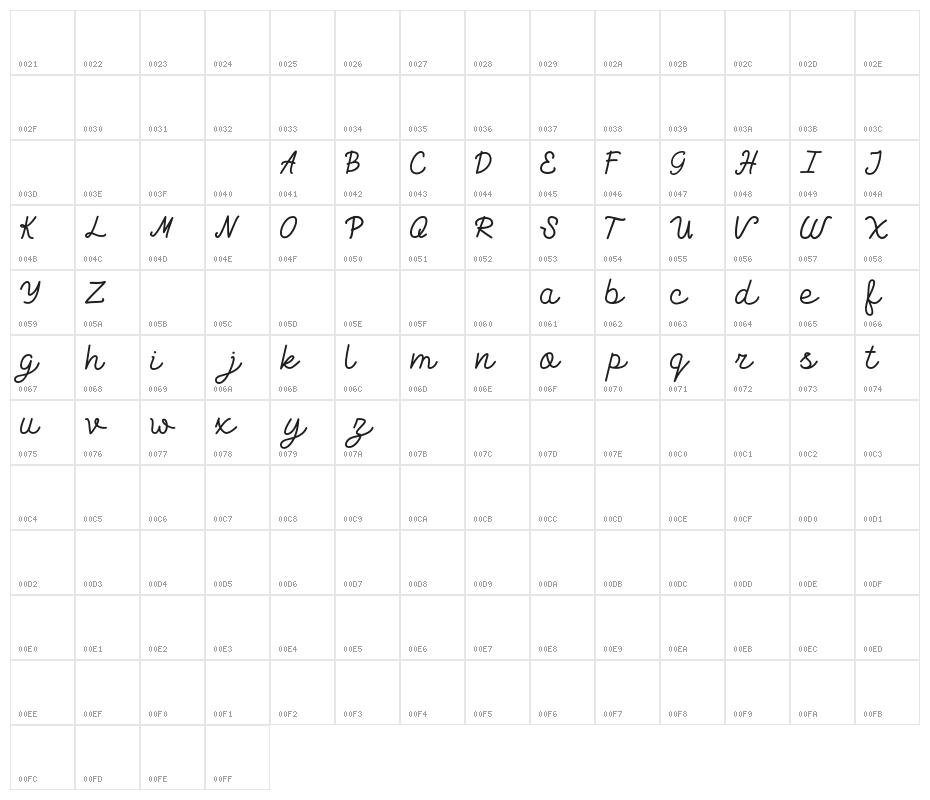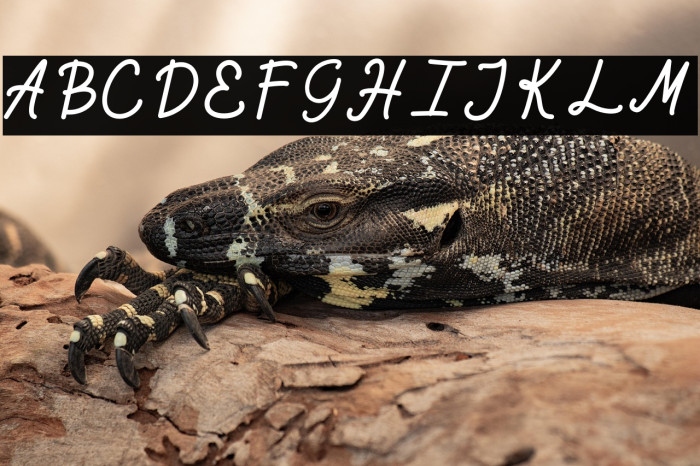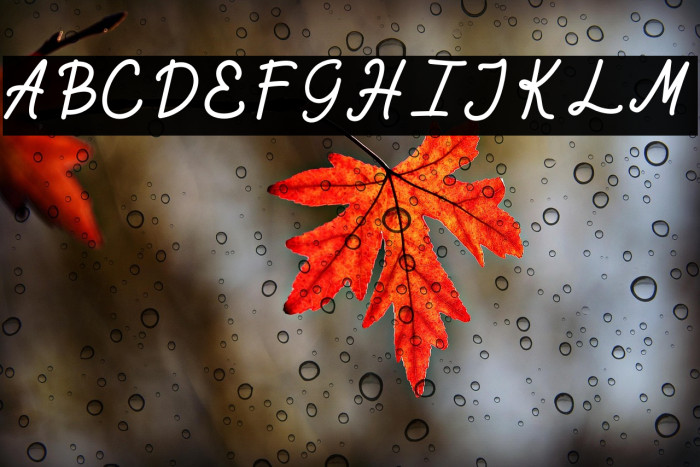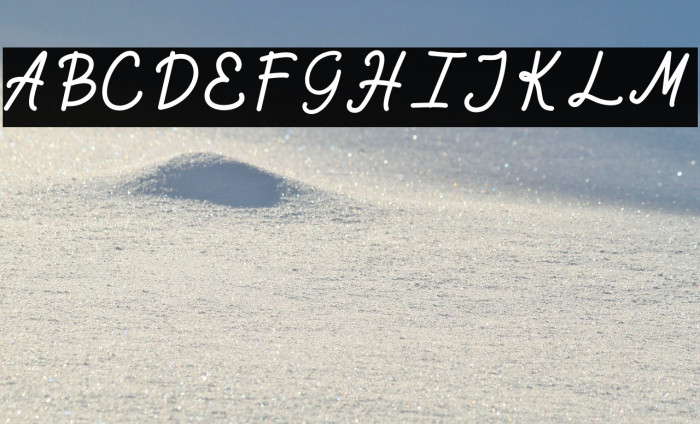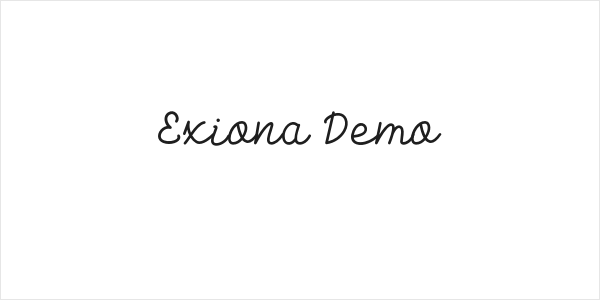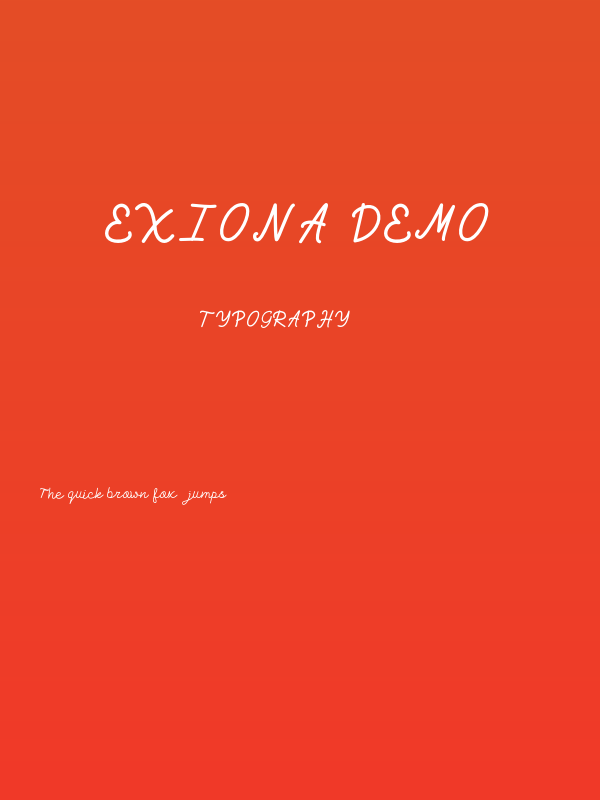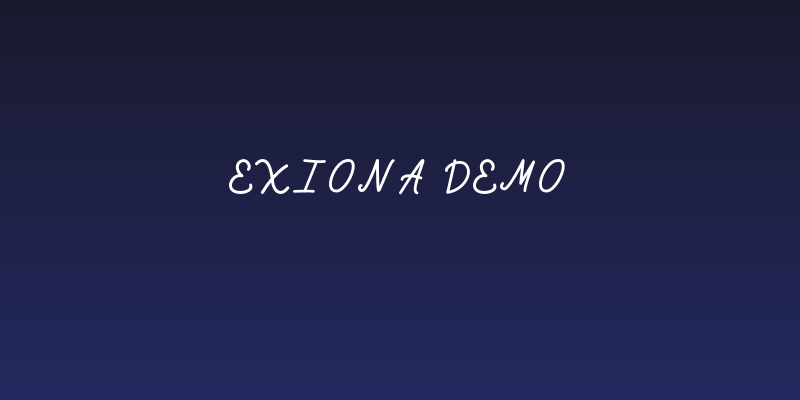
Exiona Demo Font
Exiona Demo Description
This font features a charming and fluid script style, characterized by its elegant cursive letters that mimic natural handwriting. The uppercase letters are slightly more structured, maintaining a consistent height, while the lowercase letters exhibit a playful and flowing nature with smooth curves and loops. The strokes are moderately thick, providing a balanced contrast that enhances readability without compromising its decorative appeal. This font exudes a sense of sophistication and creativity, making it suitable for projects that require a personal touch.
| Use Case | Logos, Invitations, Greeting cards |
| Proposed Projects | Ideal for wedding invitations, greeting cards, personal branding, and creative projects that require a handwritten touch. |